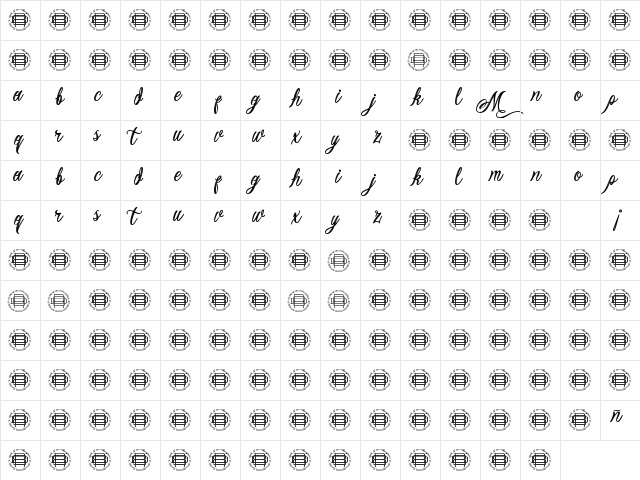
Memento Mori Demo Regular
Design Context for Memento Mori Demo Typeface
Memento Mori Demo is a composed and adaptable typeface that performs quietly and consistently across a wide range of design contexts.